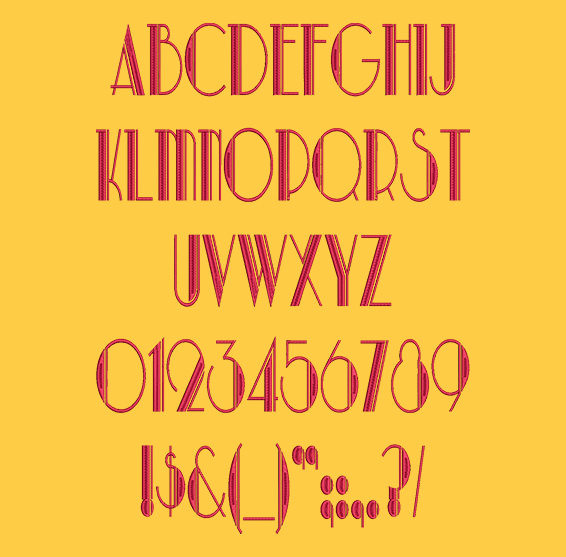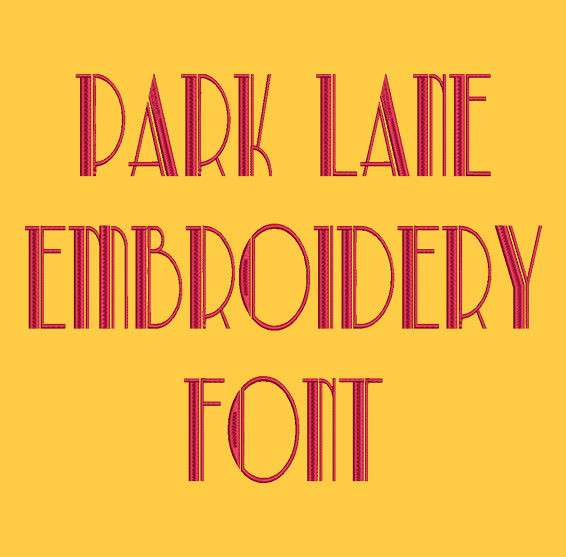
Fashion Classic Font - Park Lane Machine Embroidery Font Now Includes BX Format!
Title: Park Lane machine embroidery font
This Park Lane font is perfect for personalizing clothes, bags, towels and linens!